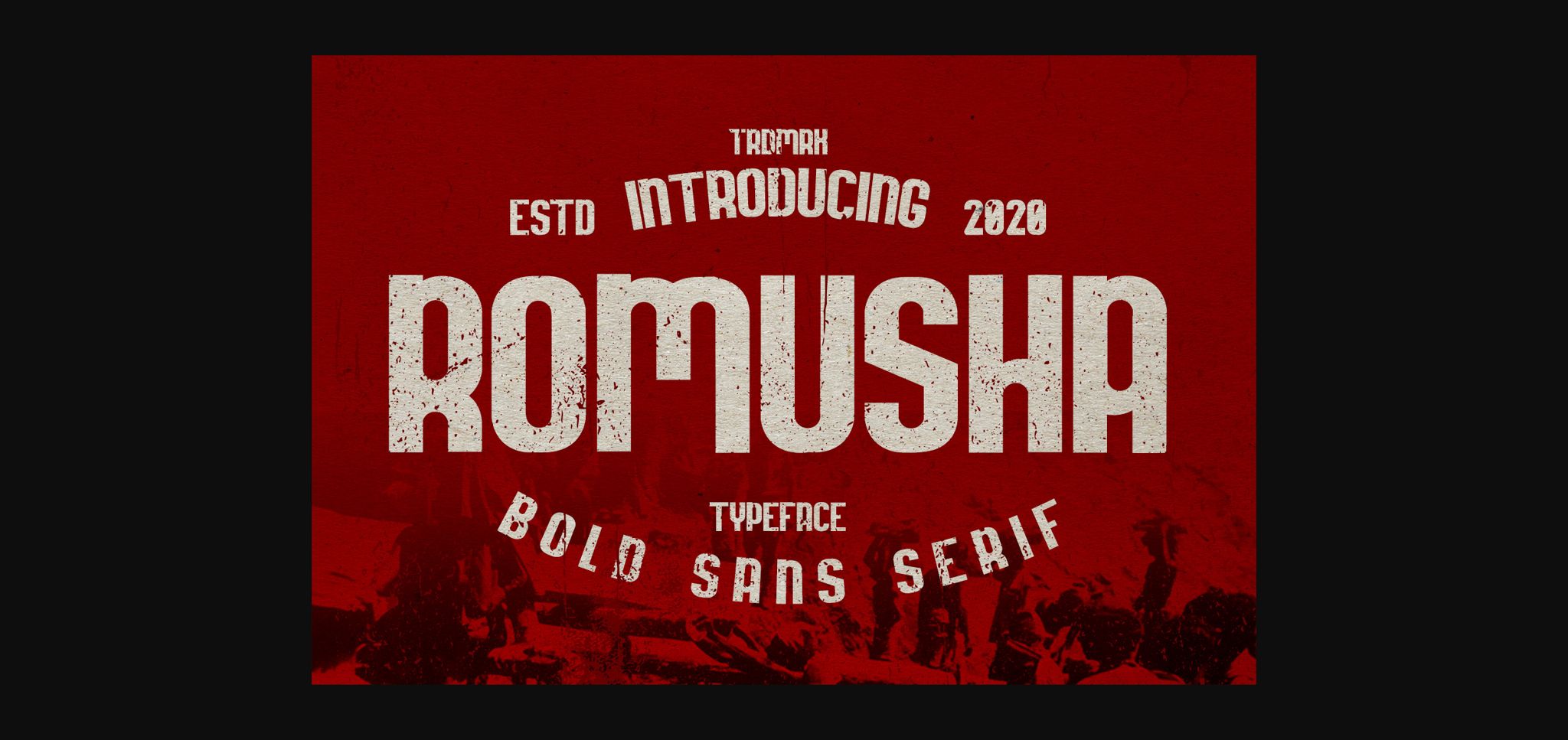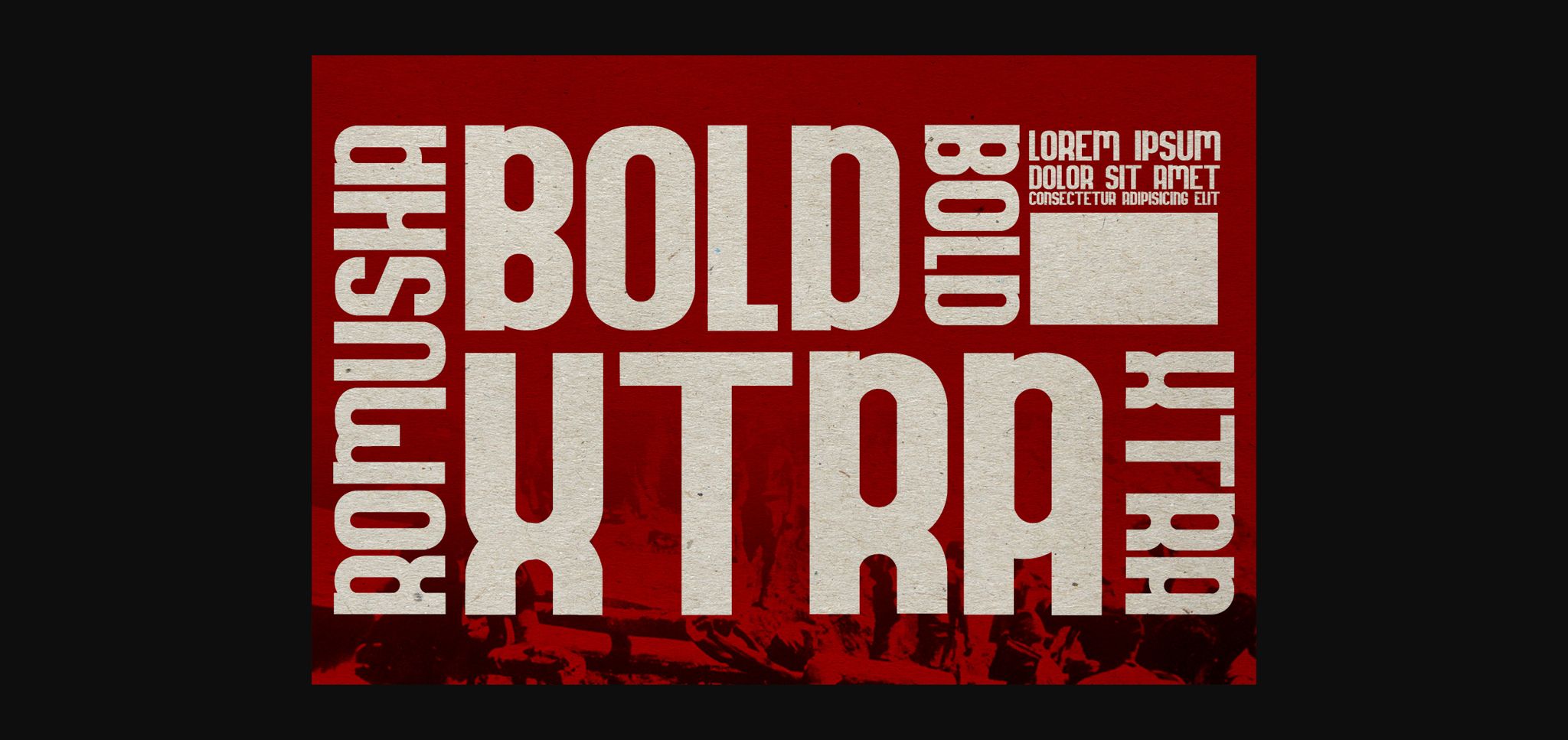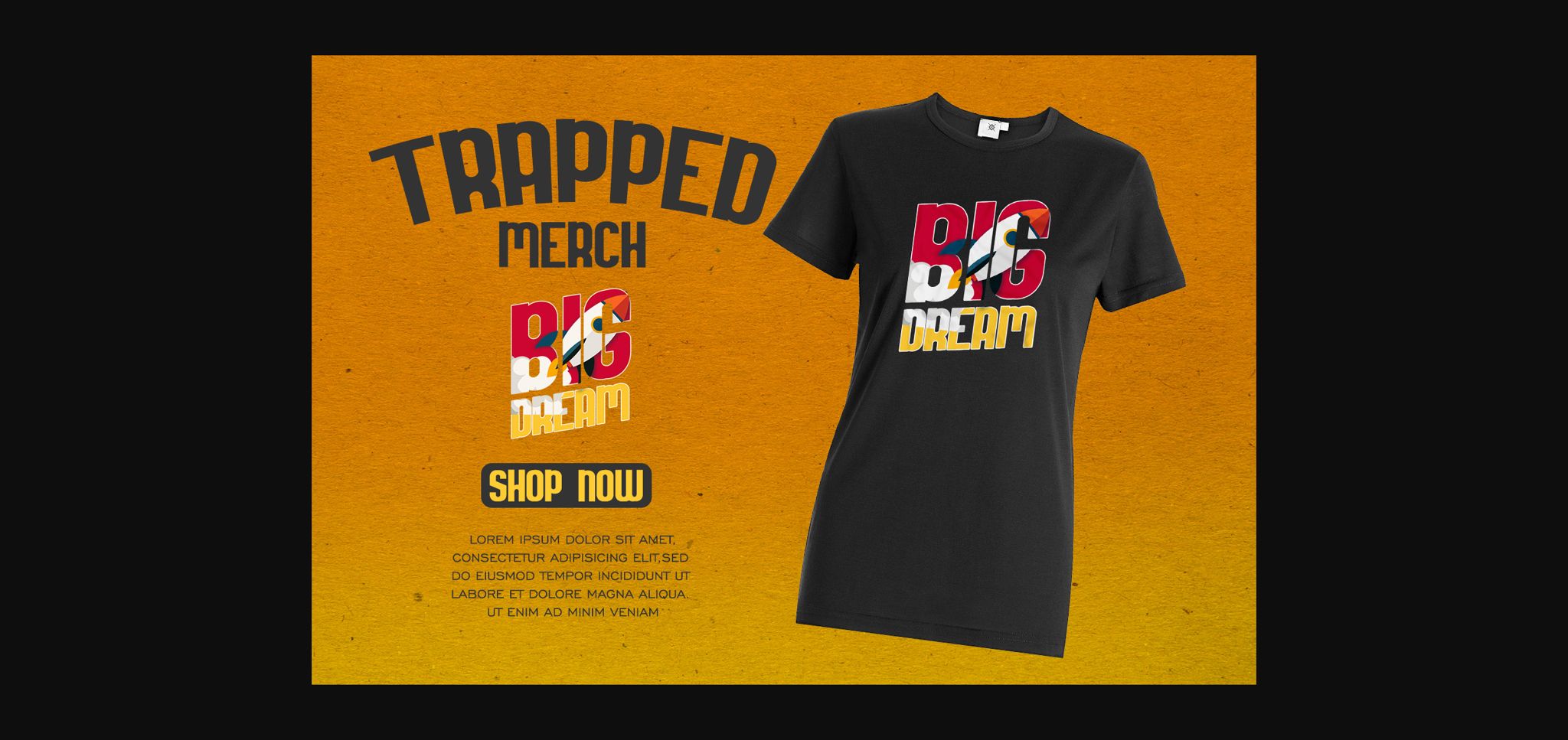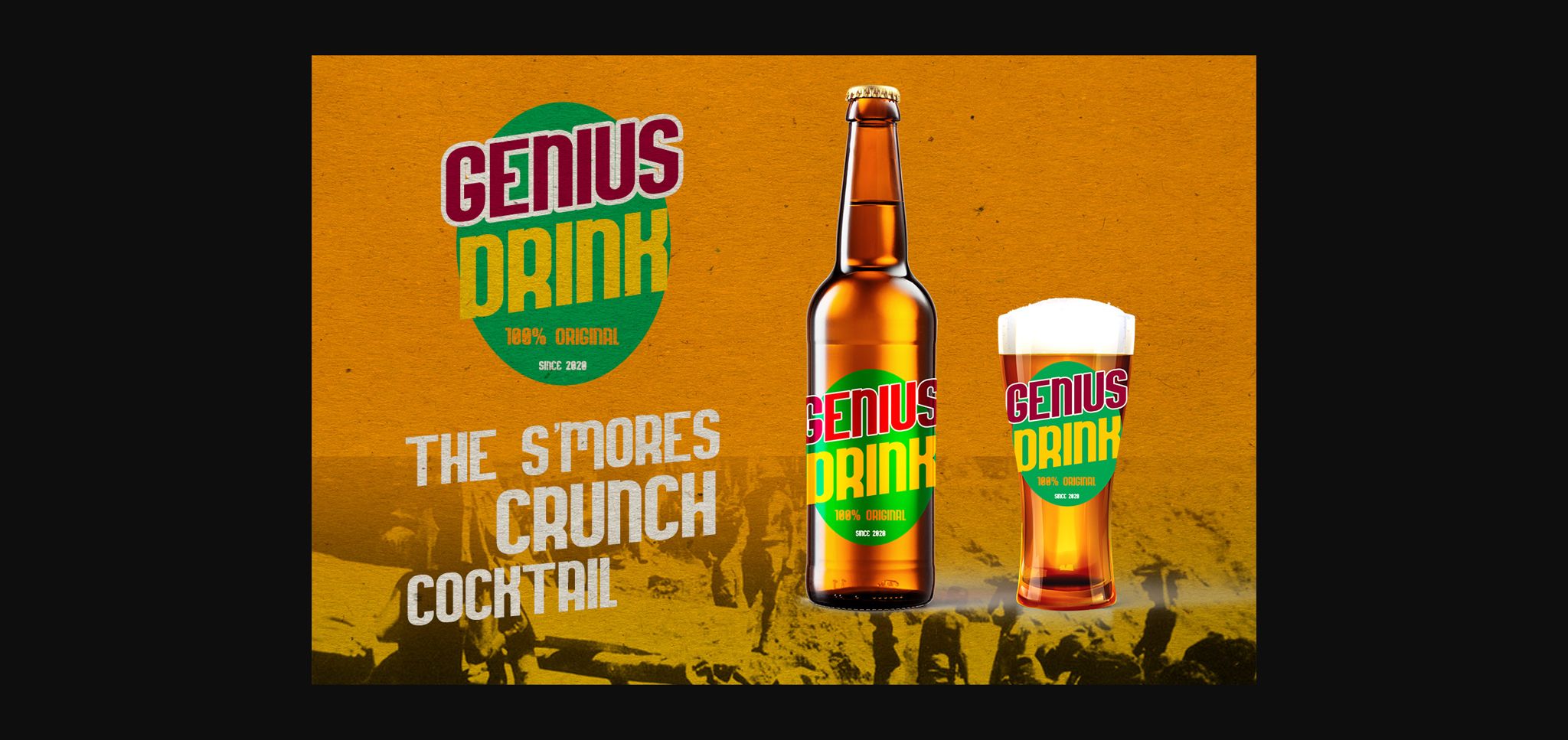
Romusha Font
About Romusha Font
Romusha is a bold and authentic sans serif font. Suitable to a wide variety of designs due to its neat and simple style, Romusha has the potential to become your favorite go-to font, no matter the occasion!